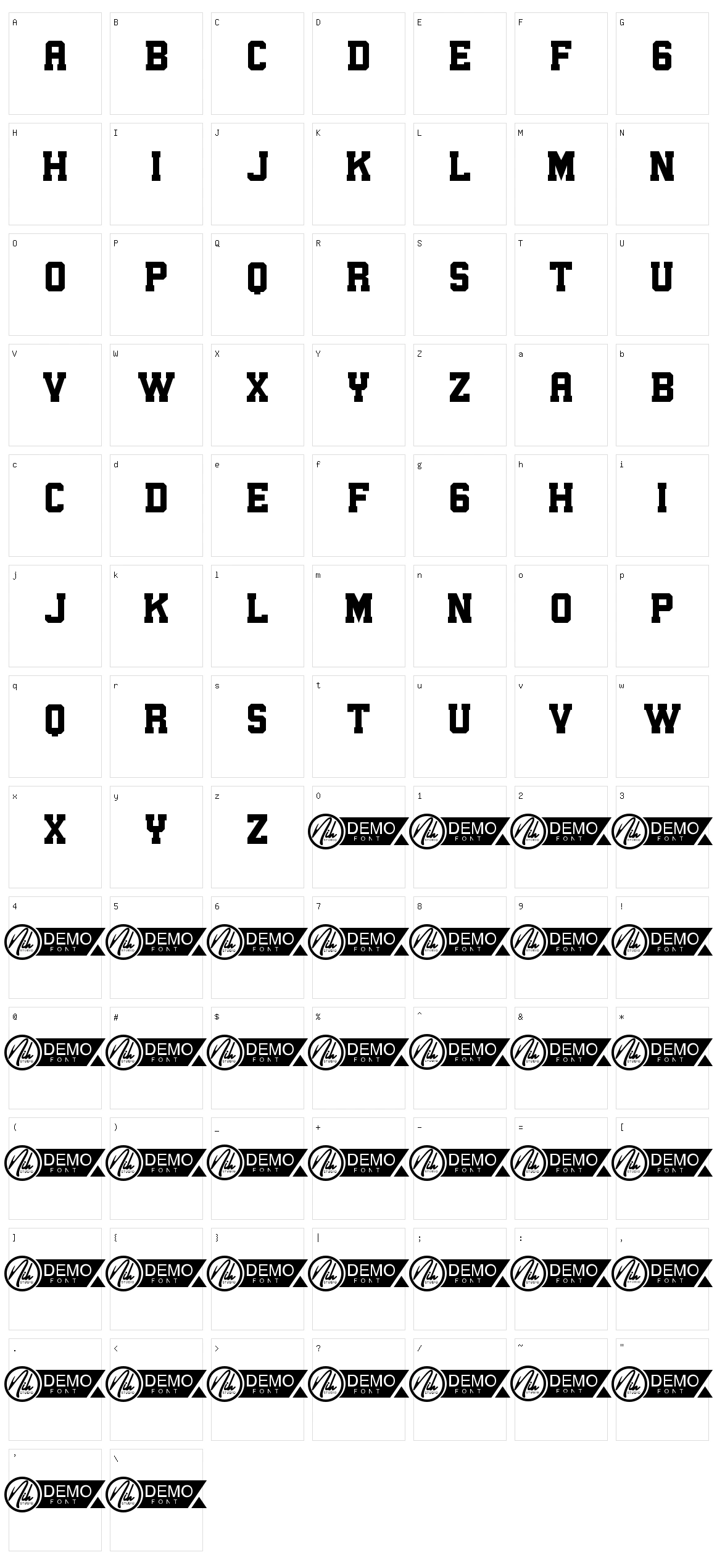
The free font College Games is carefully designed by NihStudio, showcasing a thoughtful balance of creativity and usability and falls under the Old School font style. When you download the ZIP file, it contains only 21.71 KB of font files, making it lightweight and quick to download. Please review the license details below to understand permitted usage and distribution rights. If license information is not available, we recommend using this font for personal projects only or contacting the author directly for commercial usage permissions.